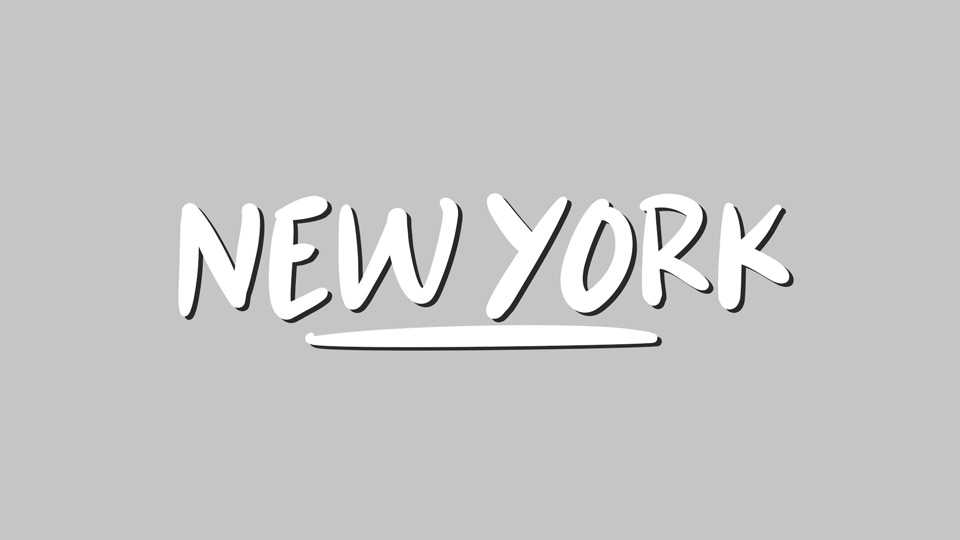
Download New York font, a simple and natural handwritten typeface with a truly authentic look. Whether you’re making beautiful quotes or designing eye-catching posts for Pinterest or Instagram, this playful font will bring your creations to life.